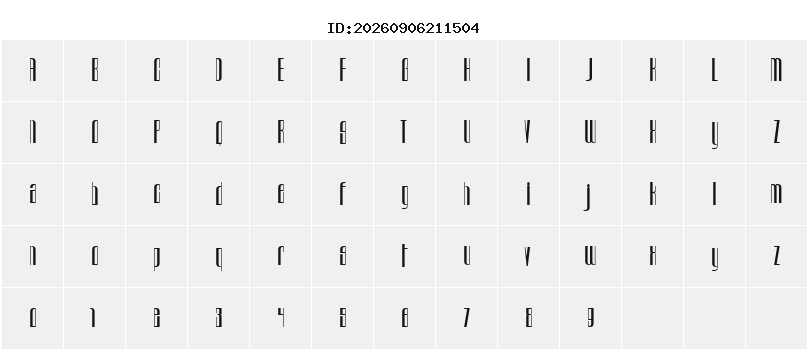
Urkelian Television Dynasty Preview
• Font Name: Urkelian Television Dynasty
• Full Font Name: Urkelian Television Dynasty
About Urkelian Television Dynasty.ttf
Urkelian Television Dynasty.ttf is a modern, elegant sans-serif font designed for ultimate readability and visual harmony. Perfect for branding, headlines, web design, and print materials.